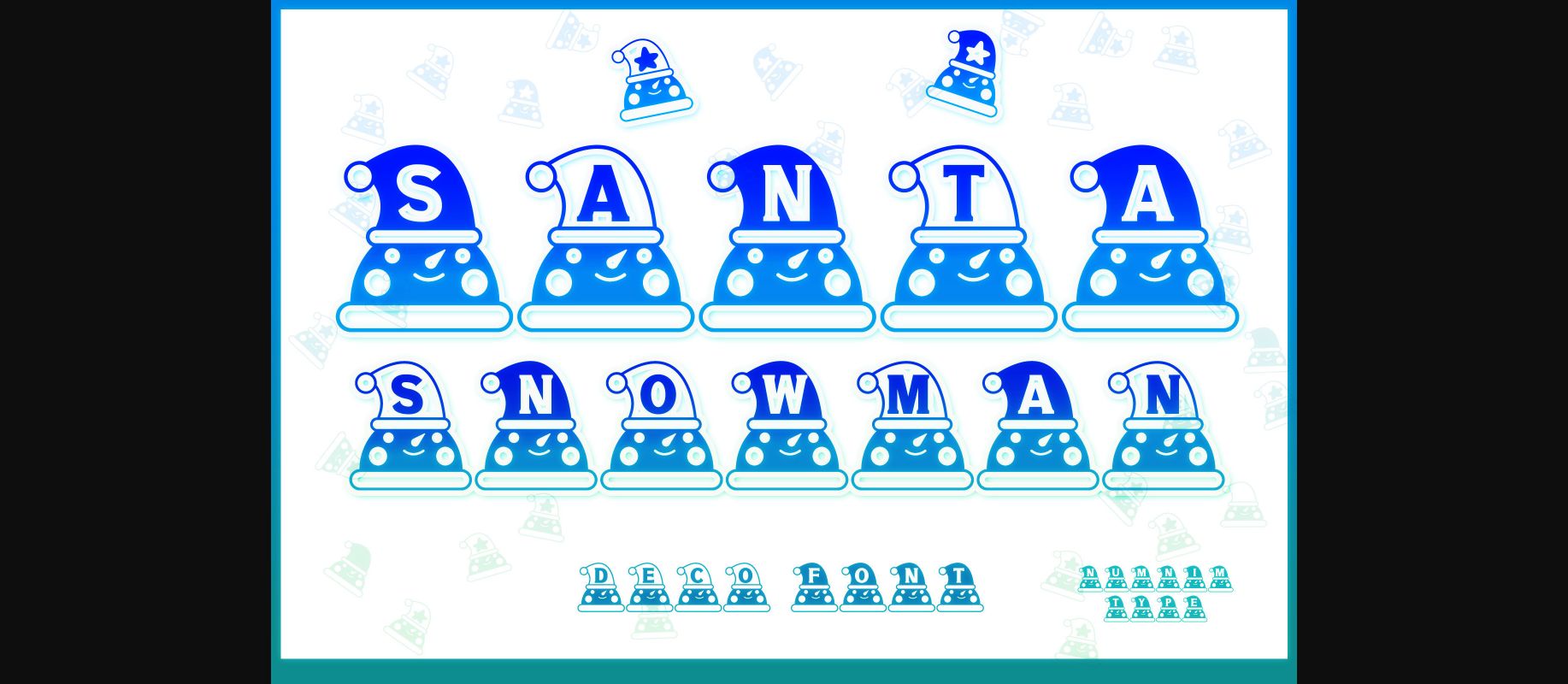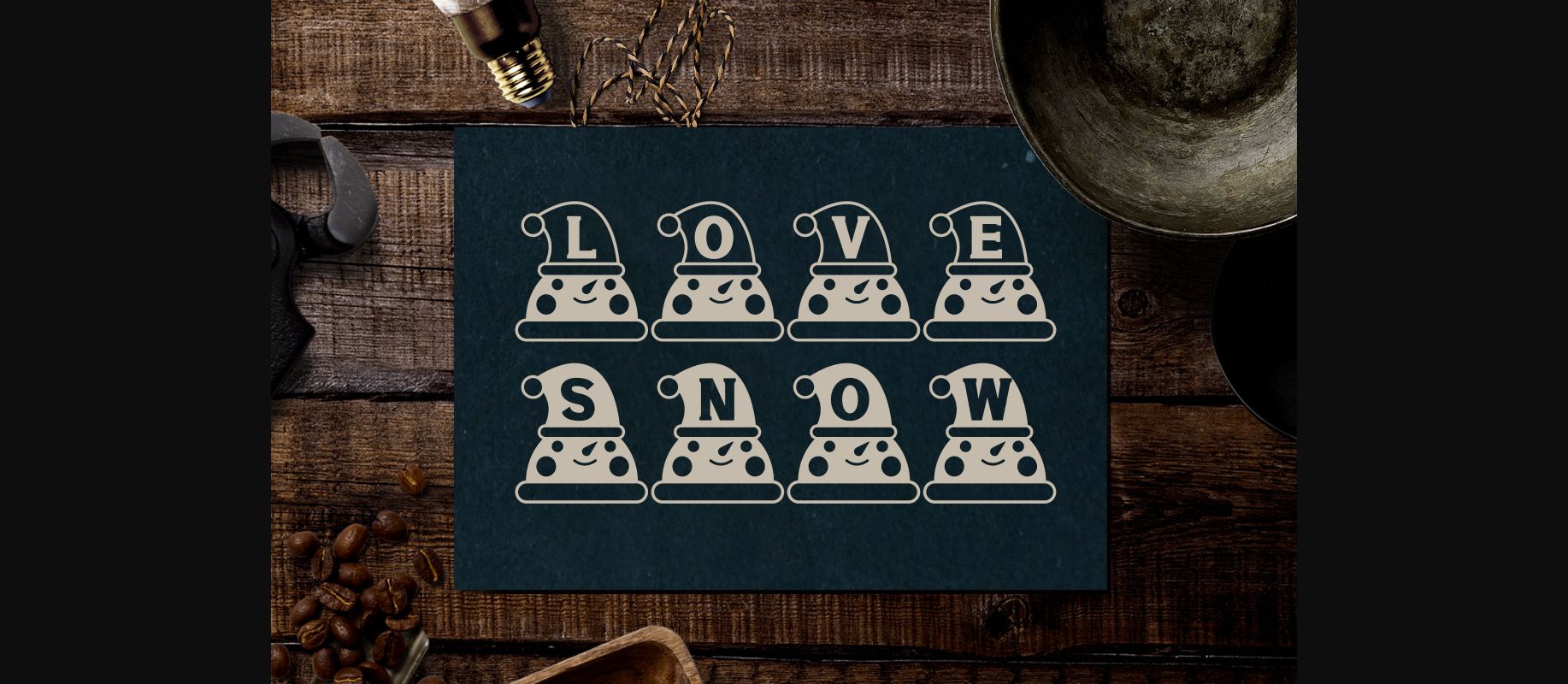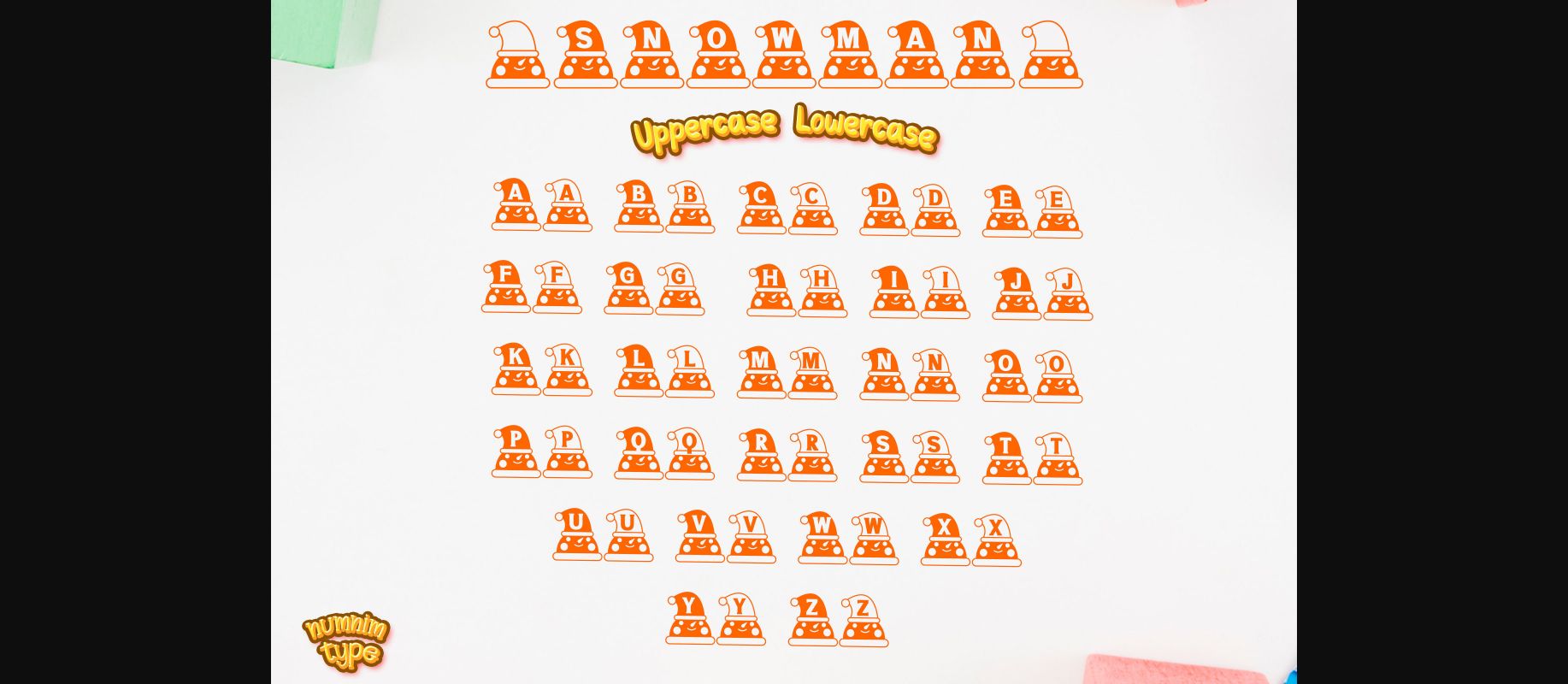
About Santa Snowman Font
Santa Snowman is a cool and uniquely crafted decorative font. Its fun and playful characters make it the perfect font for stickers, mugs, t-shirts, ornaments, Christmas day event cards, event invitations, and many more! This font is PUA encoded which means you can access all glyphs and alternates with ease!